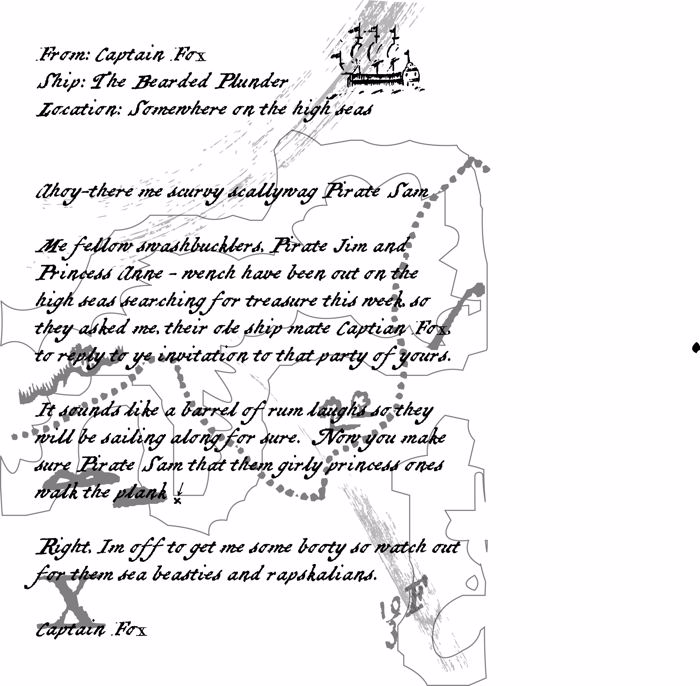
Black Sam's Gold Font
Black Sam's Gold Style
Based on the lettering of an actual period map of a pirate shipwreck off Cape Cod, the font also allows for many of the special characters and ligatures of Middle and Elizabethan English, and looks good doing it, too. Rugged and distinctive, it is also legible at much smaller sizes than many stylized fonts allow, and has a large extended character set. Two dingbat fonts are included as well, including a playing-card font.
The ship was the "Whydah", under the pirate Samuel "Black Sam" Bellamy. The principle font from the map is Black Sam's Gold. The other two are dingbats.